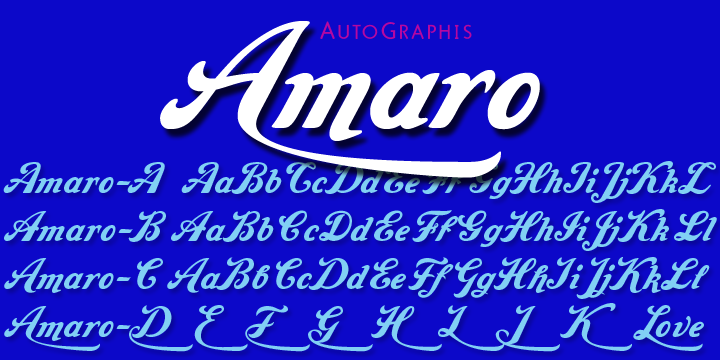
Amaro is a brush script font family. This typeface has four styles and was published by Wiescher-Design.
»Amaro« is the Italian word for bitter (amaro) herbal drinks like Ramazotti, Averna and a trillion lesser known ones. These liquors were the literal base for this elaborate set of four fonts. Each has different uppercase letters and some of the lowercase letters vary as well. Amaro-A, B, and C can be mixed freely. The Amaro-D has underlining swashes in two different lenghts, the uppercase has the shorter underlines and the lowercase the longer ones. I throw these in for free and the entire set is very reasonably priced. Enjoy and cheers to you!